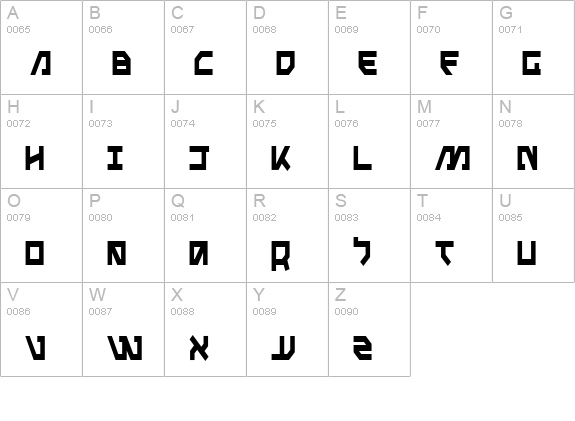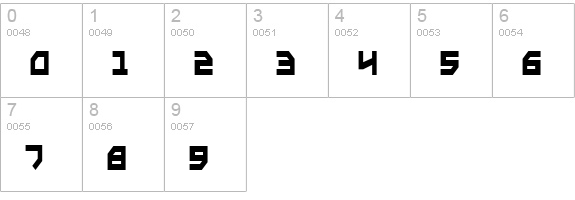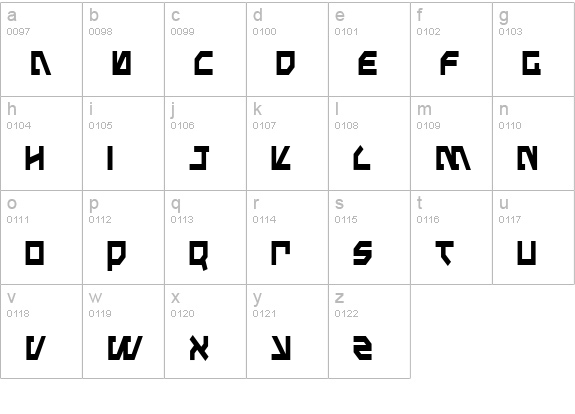
Metal Storm Condensed is a distinctive, condensed-width variant in the Metal typeface family \xE2\x80\x94 well suited to design and typography projects.
Metal Storm Condensed font is a bold and powerful typeface that exudes strength and modernity. Its condensed design makes it perfect for headlines, posters, and any design that requires a strong visual impact. The sharp edges and geometric shapes give this font a futuristic and industrial feel, making it ideal for projects that require a touch of edginess. This versatile font is suitable for a wide range of design projects, from branding to packaging to editorial design. Its clean lines and sleek appearance make it easy to read even at smaller sizes, while still commanding attention with its bold presence. Best of all, Metal Storm Condensed font is completely free to download at FontsMarket.com. Whether you're a professional designer looking for a powerful new typeface or a hobbyist seeking to add some flair to your projects, Metal Storm Condensed font is a fantastic choice that won't cost you a penny. Download it today and unleash the power of this dynamic font in your next creative endeavor.